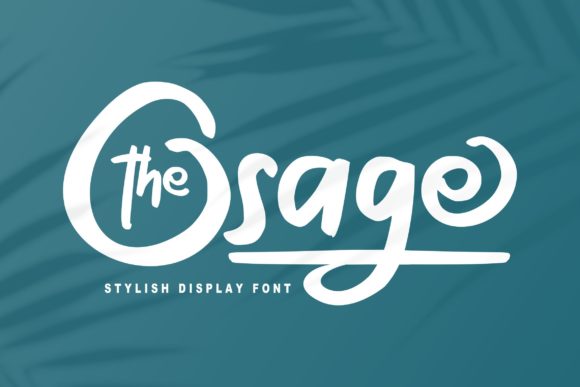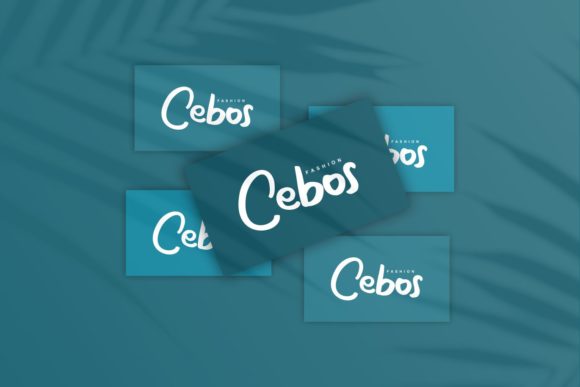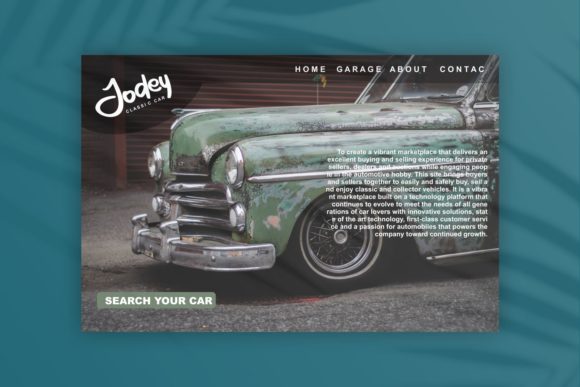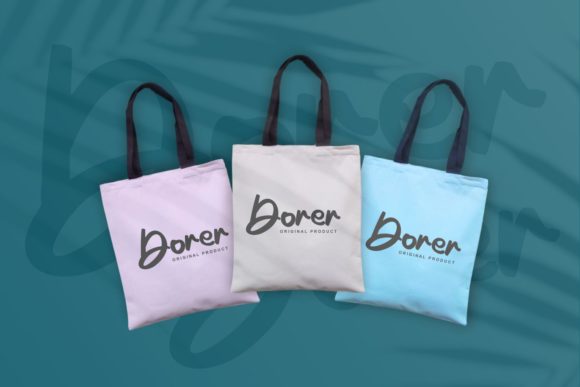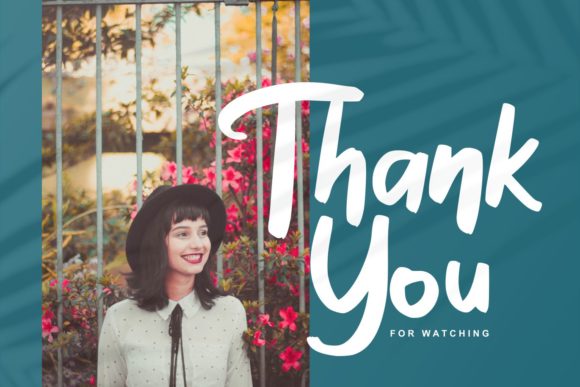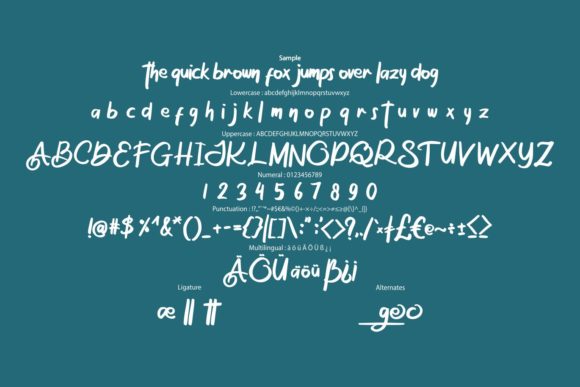
HomeScript FontsThe Osage Font Script Fonts The Osage Font FacebookXPinterestWhatsApp The Osage Font Poster 2 The Osage Font Poster 3 The Osage Font Poster 4 The Osage Font Poster 5 The Osage Font Poster 6 About The Osage Font The Osage is an exciting handwritten font with interesting characters. Fall in love with its playful appearance! DOWNLOAD ON CREATIVE FABRICAThis font is sold and delivered by Creative Fabrica. Font Canyon may earn a commission if you buy through this link. People also explored Valentine Chips Plastic Font Hagia Signal Brithany Font In Love Font The Khallid Font Enjoy Your Day Font Kamikaze Font Buttermilk Font 305 0 TagsThe Osage Font Previous articleCinnamon Cookie FontNext articleDiotam Font LEAVE A REPLY Cancel reply Comment: Please enter your comment! Name:* Please enter your name here Email:* You have entered an incorrect email address! Please enter your email address here Website: Save my name, email, and website in this browser for the next time I comment. Personal Use Free Reztop Personal Use Free Read more about this font Aliqa Personal Use Free Read more about this font Bosk Personal Use Free Read more about this font Good Mood Personal Use Free Read more about this font BLOG Top 10 Handwritten Fonts That Elevate Your Designs Top 10 Handwritten Fonts That Will Elevate Your Designs Handwritten fonts bring a warm, personal touch to every creative project. Whether you're designing logos, invitations,... Free Fonts Risk: Why Free Fonts Can Be Dangerous for Designers To increase your work productivity, choose the most readable fonts. Best Fonts for T-Shirt Design – Top 2025 Picks